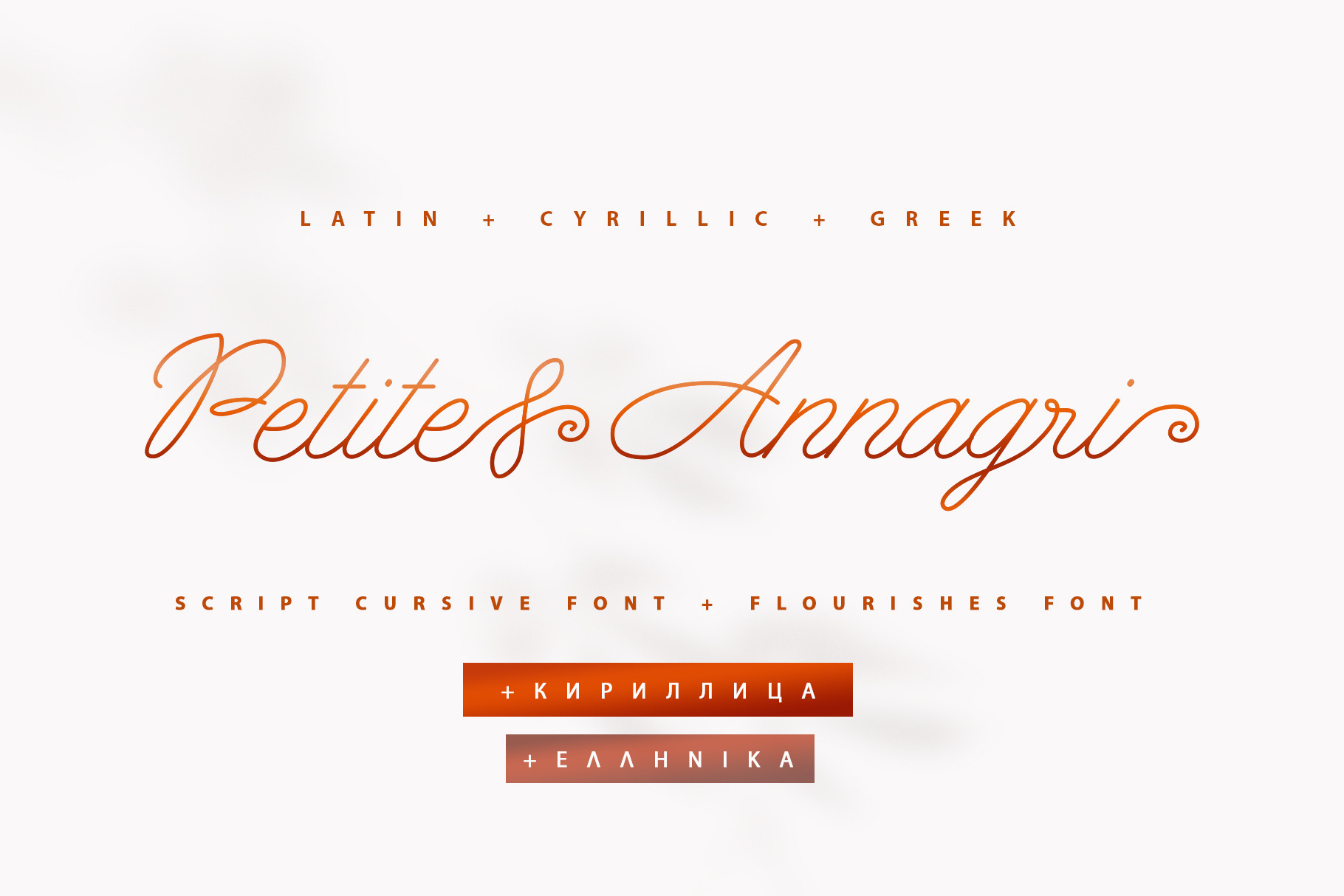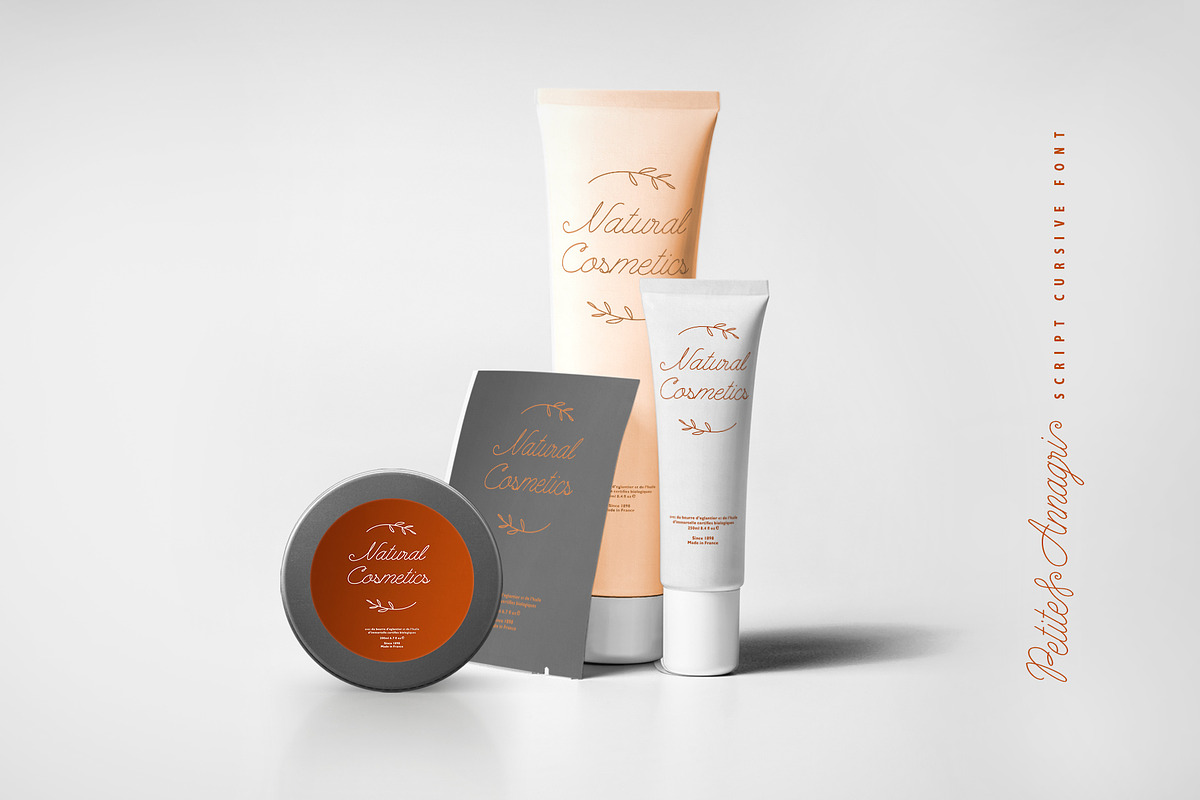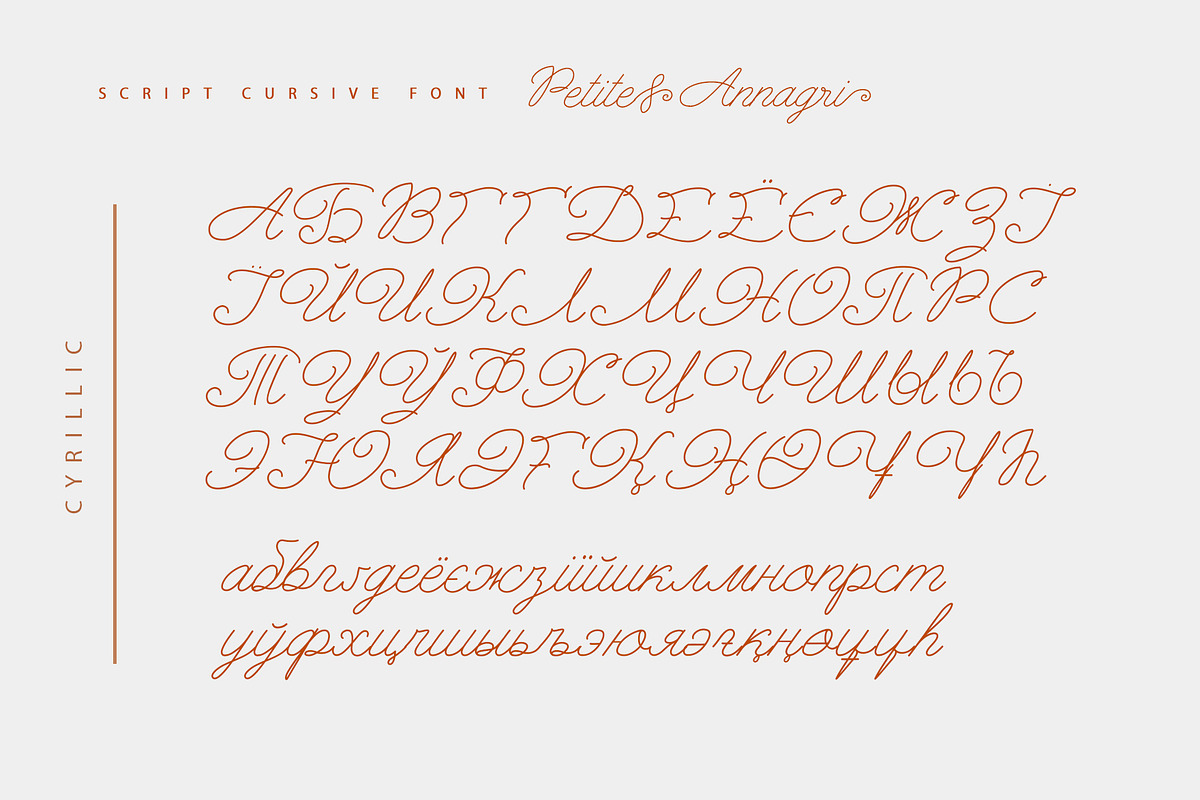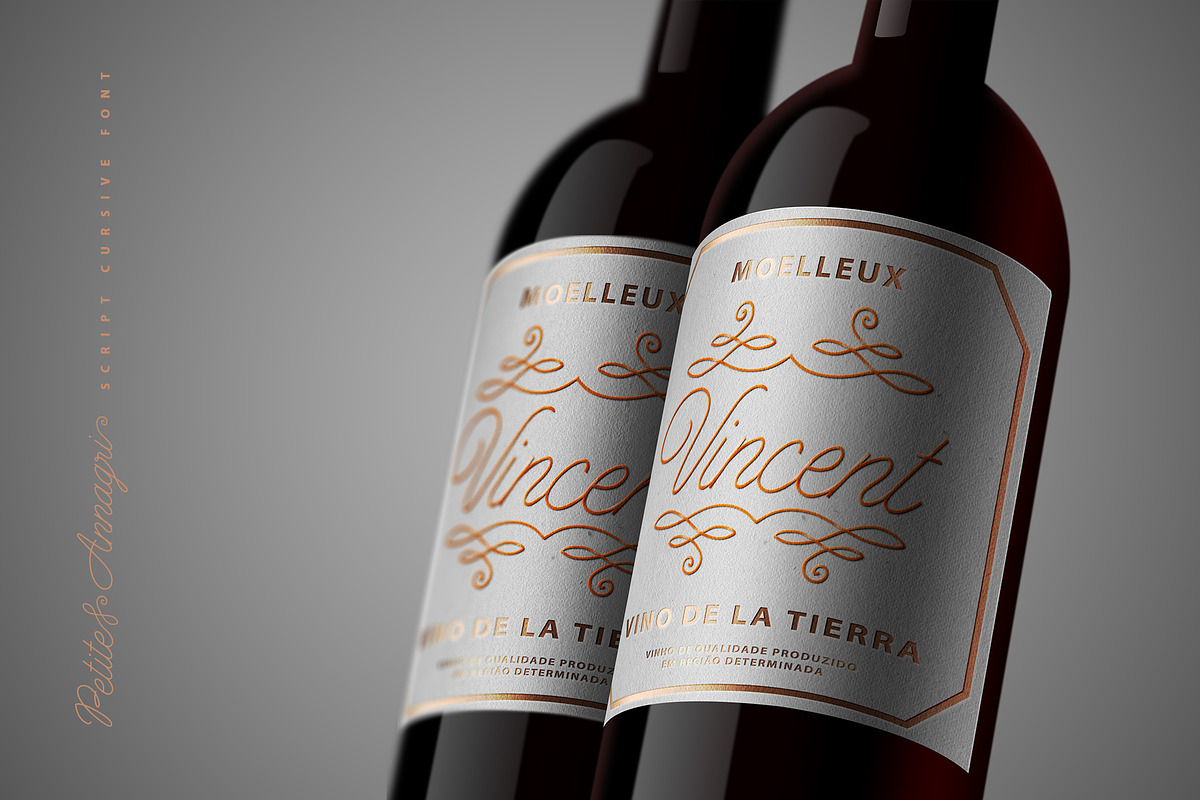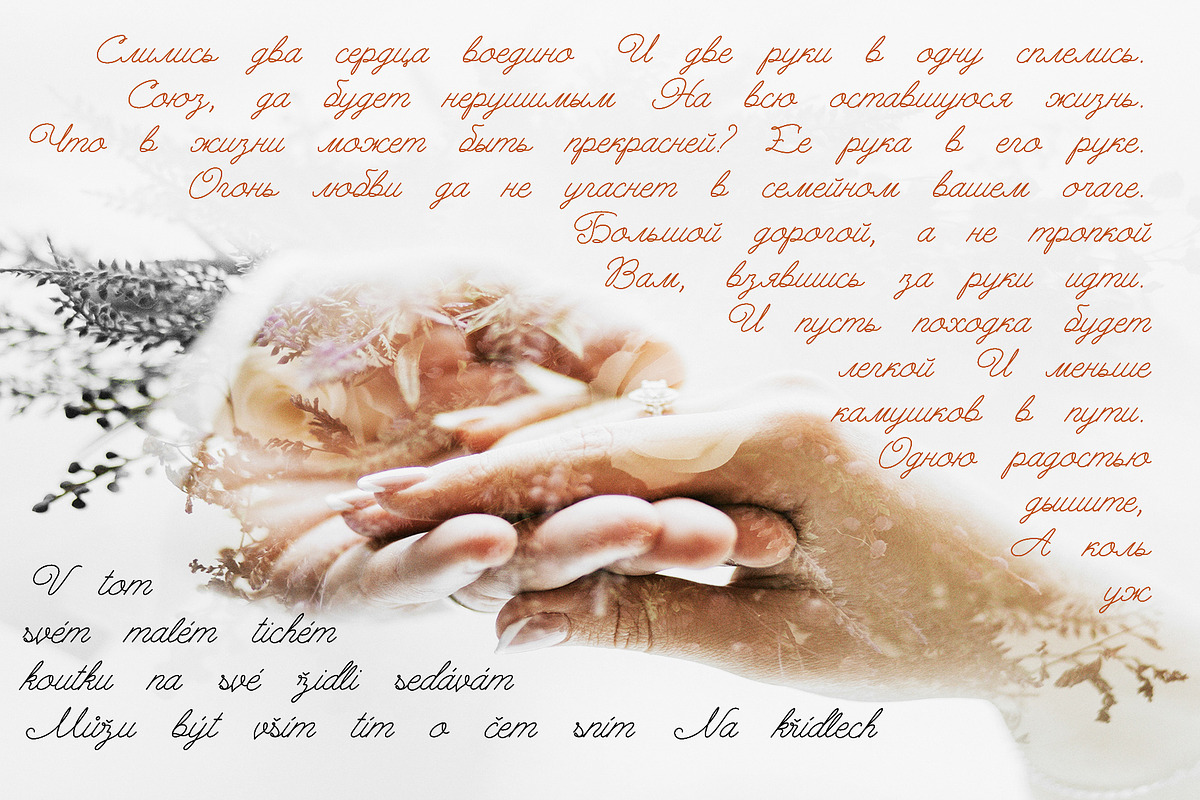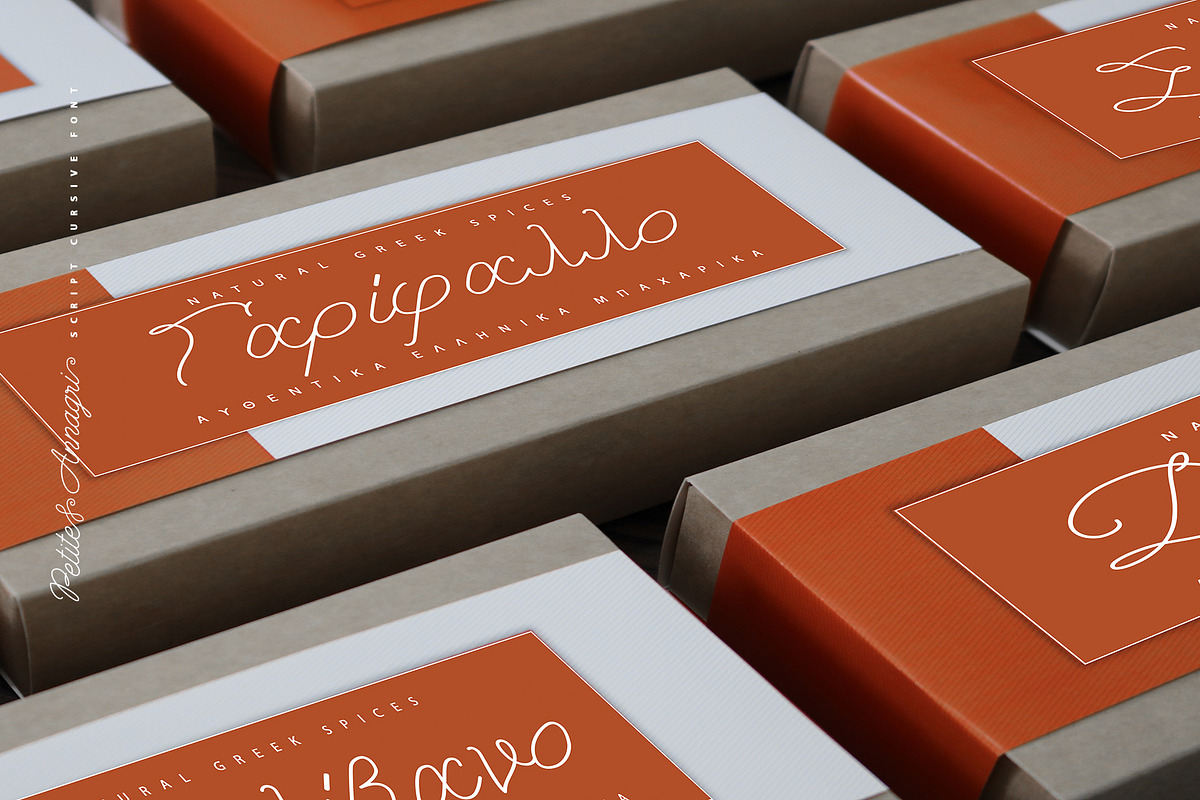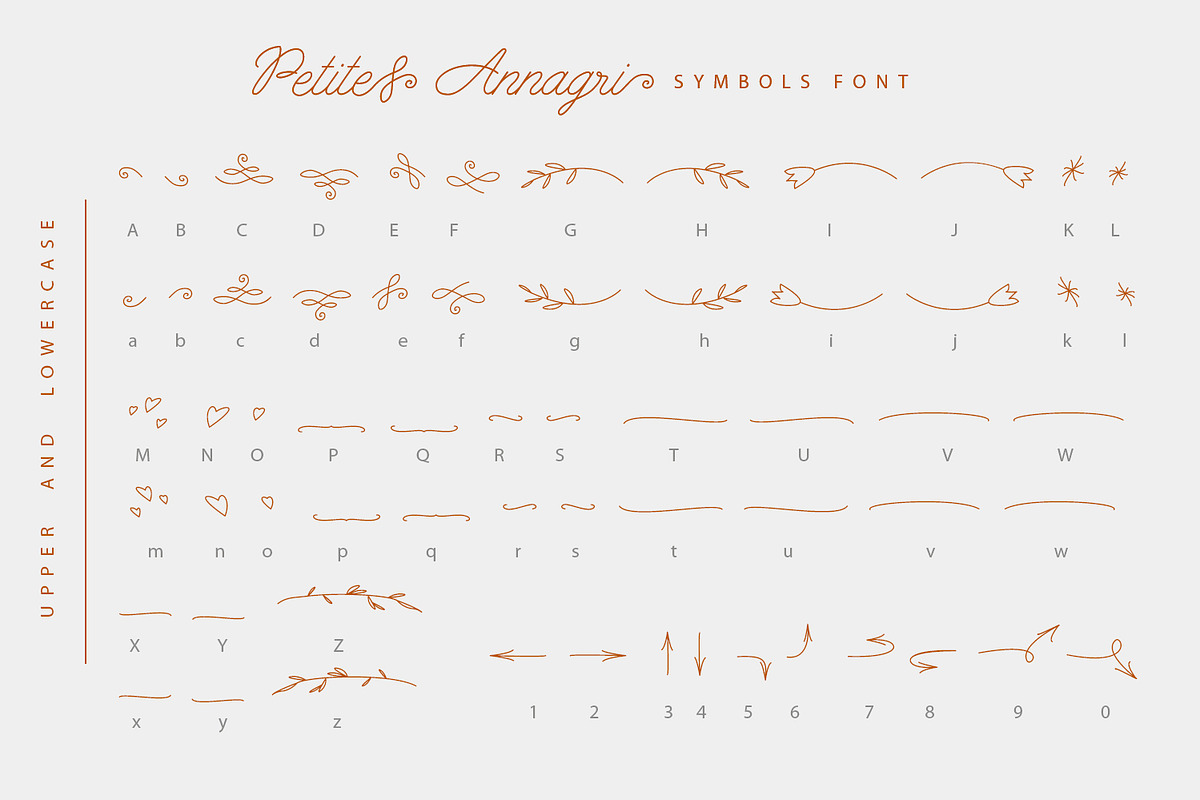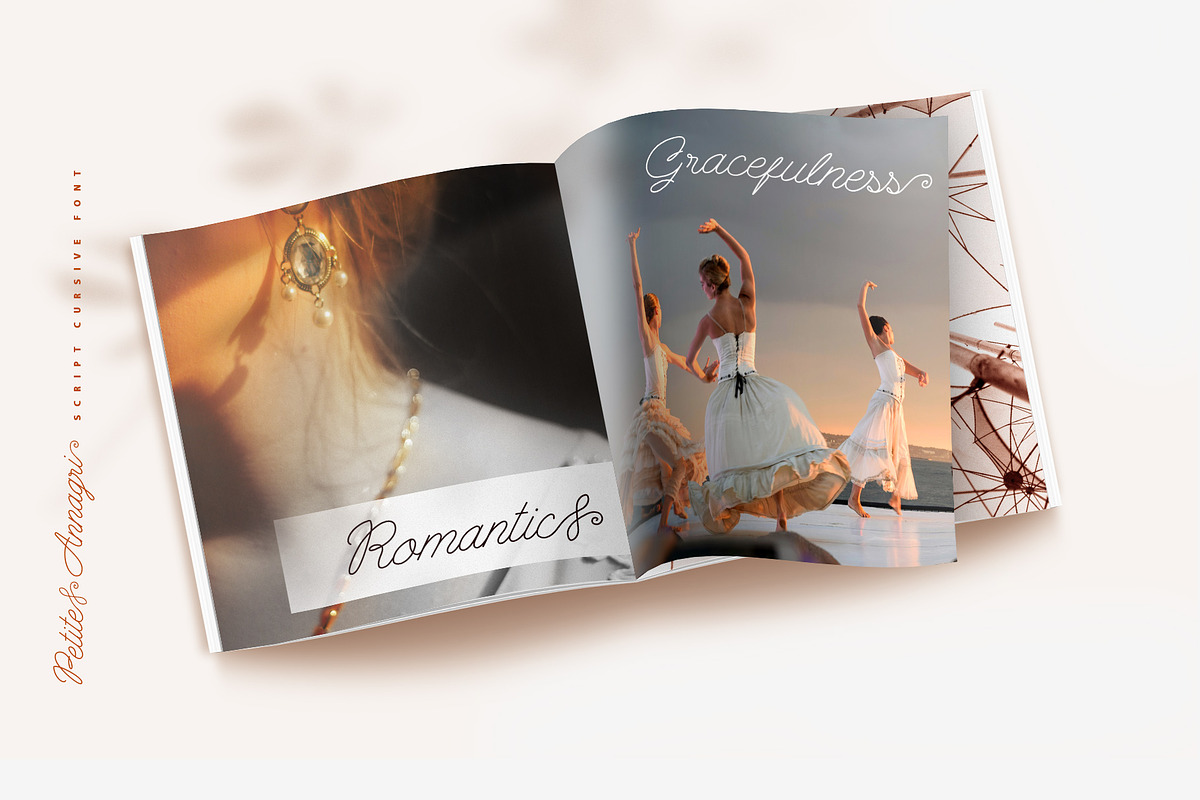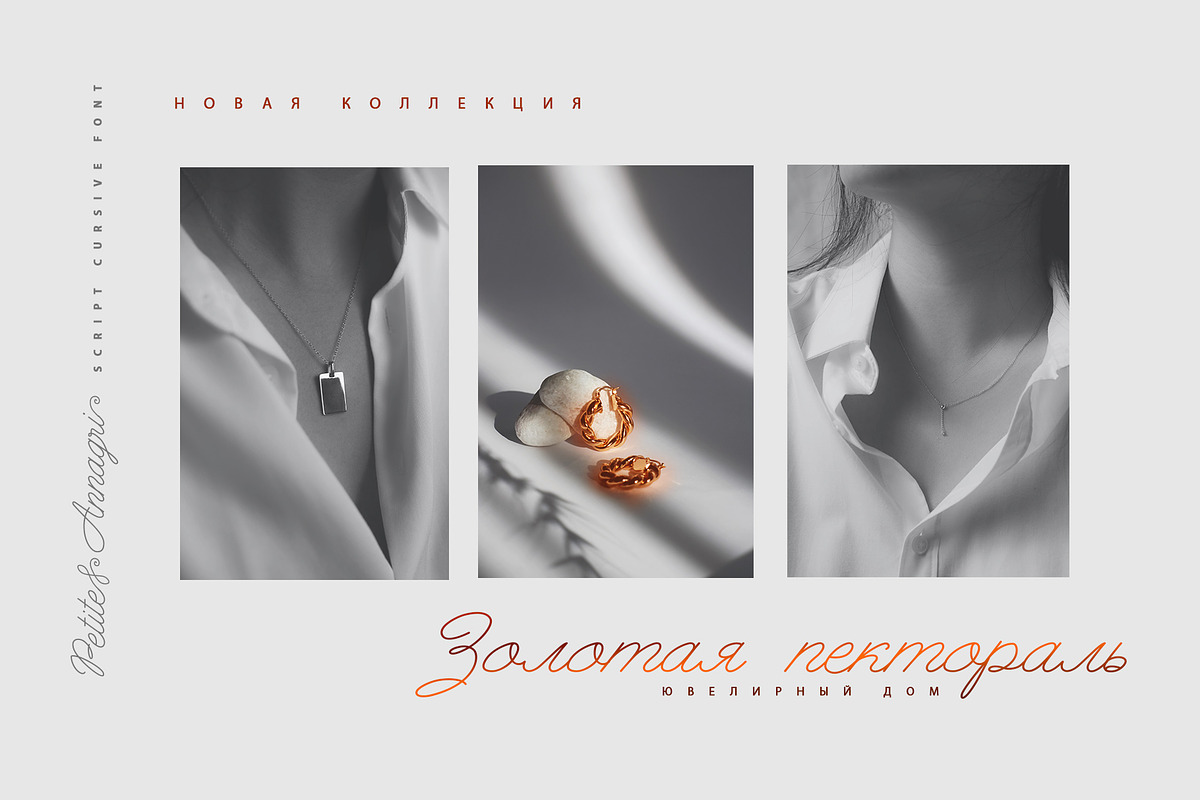
Petite Annagri Cyrillic Greek font
The font pair Petite Annagri Cyrillic Greek will look gorgeous on wedding stationery, love stories, branding materials, monoline logos, business cards, Insta quotes, elegant fashion sketches, and much more.
Petite Annagri script font contains the Cyrillic and Greek glyphs too.
Petite Annagri is a pretty monoline cursive font, plus a Symbols font with 36 lovely monoline swirls, flourishes, and illustrations. Petite Annagri script font contains a full set of uppercase and lowercase letters.
Petite Annagri Symbols is a font with over 36 hand-drawn monoline elements, illustrations, and swashes that can help you to make your design unique and matchless.
Combine and merge swashes, flourishes, and illustrations to create your own designs and make borders, frames, dividers, logos, and more. To make the swirl or flourishes in the beginning or in the end of the word just type the letter (A-Z or a-z and 0-9 keys) and choose the included Petite Annagri Symbols font. See preview images.
Multilingual Support for 33 languages: Latin glyphs for Afrikaans, Albanian, Basque, Bosnian, Catalan, Danish, Dutch, English, Estonian, Faroese, Filipino, Finnish, French, Galician, Indonesian, Irish, Italian, Malay, Norwegian Bokmål, Portuguese, Slovenian, Spanish, Swahili, Swedish, Turkish, Welsh, Zulu.
Also, the Greek language is supported.
And Cyrillic glyphs support for Russian, Belorussian, Bulgarian and Ukrainian languages Kazakh.